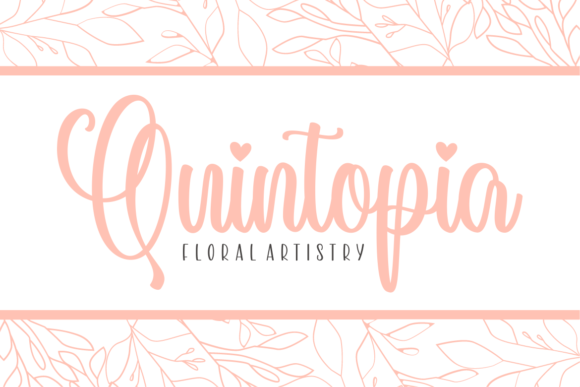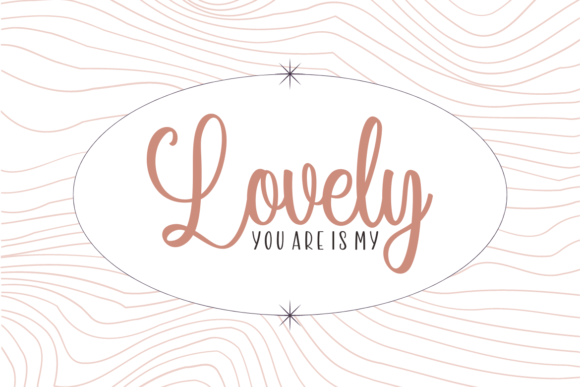
Simple Thinks Font
Simple Thinks is a stylish and delicate duo font (script and sans serif) suitable for a wide spectrum of applications. From greeting cards to headlines, this font will guarantee a romantic touch to each of your creations!